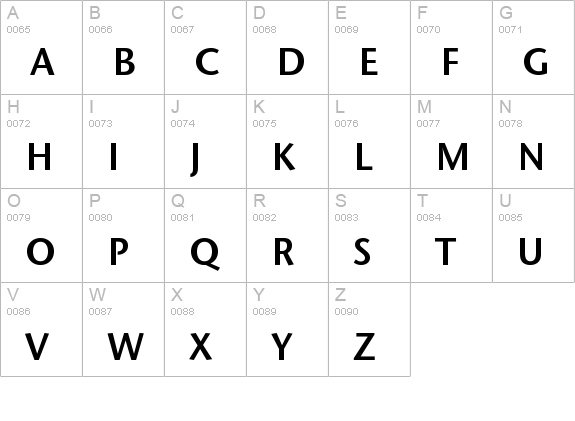
StoneSansEF-SemiBold Font Details
StoneSansEF-SemiBold is a sub-bold, structured variant in the StoneSansEF typeface family \xE2\x80\x94 well suited to sub-headlines and emphasised passages.
StoneSansEF-SemiBold is a versatile and modern font that exudes strength and sophistication. With its semi-bold weight, this typeface is perfect for making a bold statement in your designs while maintaining a sense of elegance. The clean lines and sturdy appearance of StoneSansEF-SemiBold make it ideal for a wide range of projects, from branding to editorial design. What sets StoneSansEF-SemiBold apart is that it is not only visually striking but also freely available to download. You can easily access this high-quality font at FontsMarket.com, where you can enhance your creative projects without any cost constraints. By using StoneSansEF-SemiBold, you can elevate your designs with a touch of professionalism and style, all while enjoying the convenience of a free download.